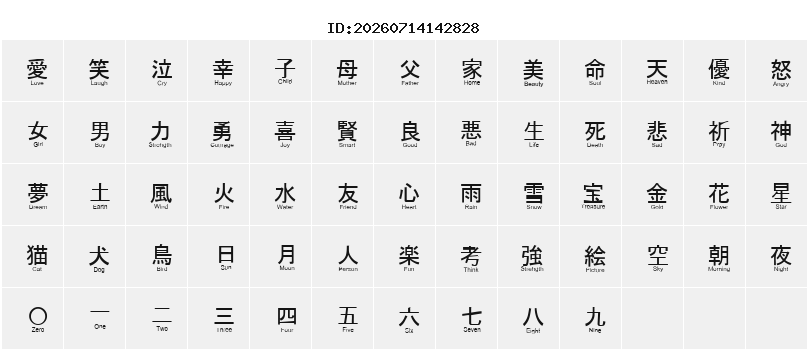
JayCons Preview
• Font Name: JayCons
• Full Font Name: JayCons
• Character Count: 72
About JayCons.ttf
JayCons.ttf is a modern, elegant sans-serif font designed for ultimate readability and visual harmony. Perfect for branding, headlines, web design, and print materials.